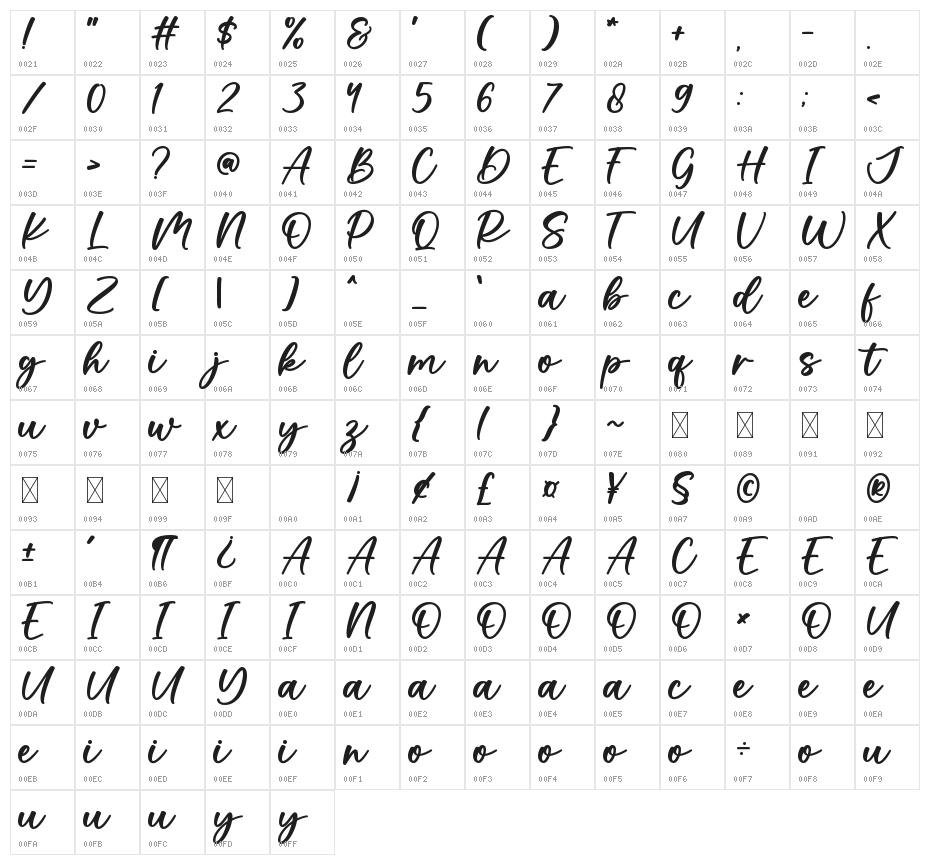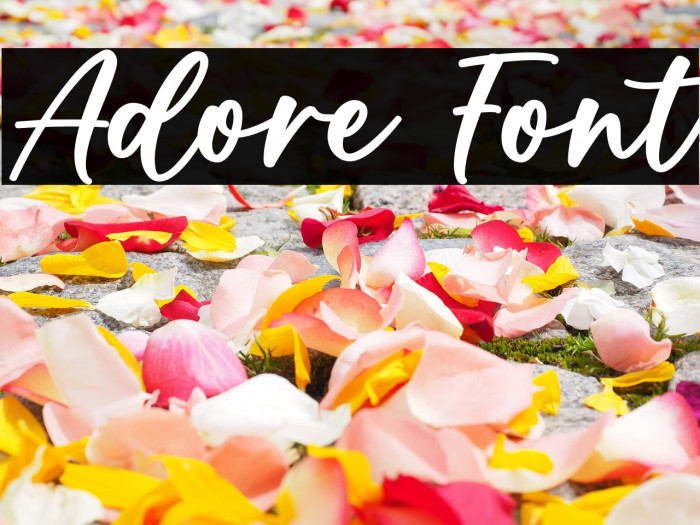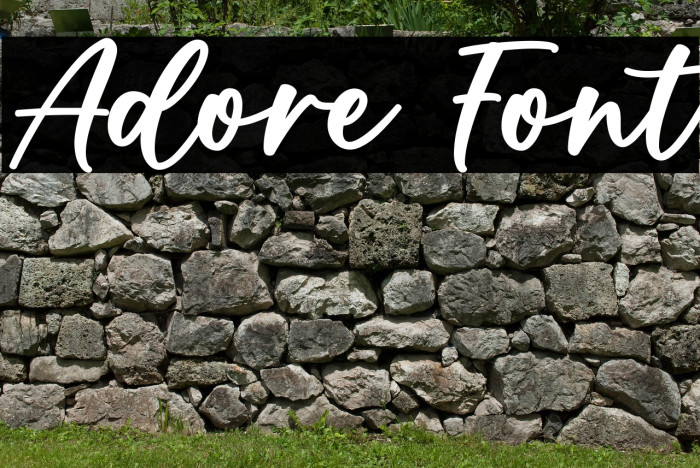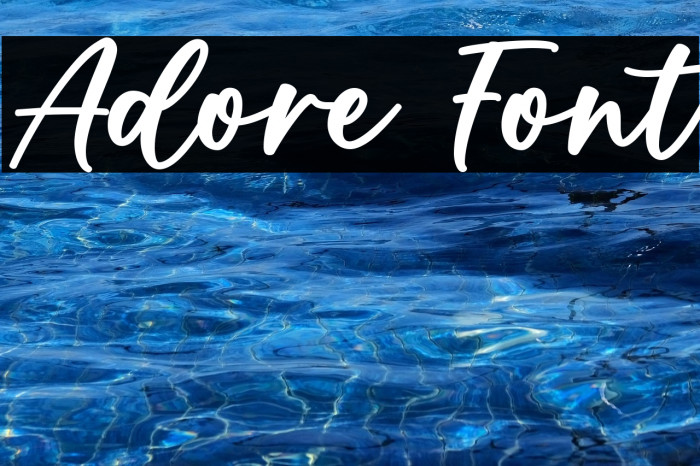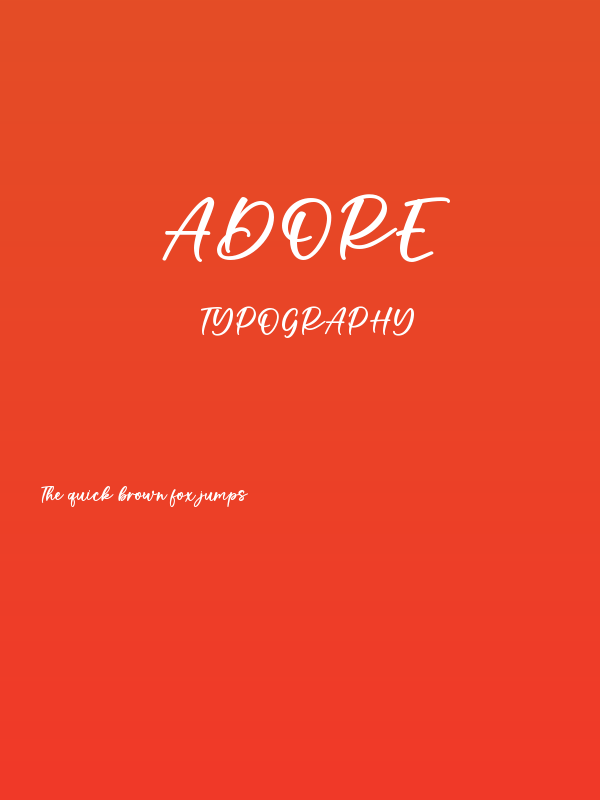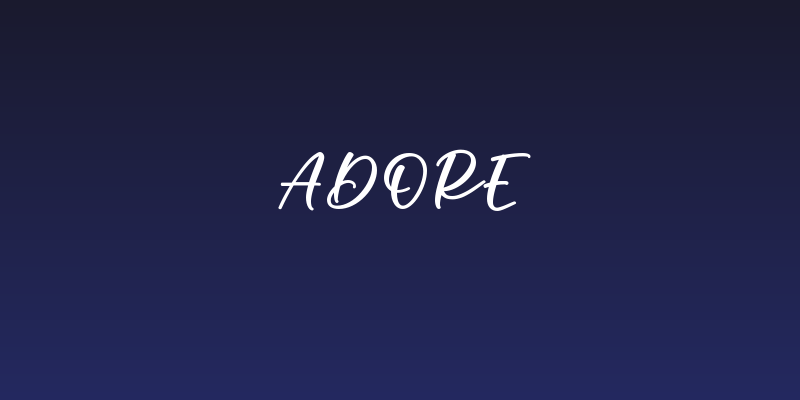
Adore Font
Adore Description
A flowing, connected script font with a handwritten appearance, featuring smooth curves and consistent stroke thickness. The characters are slightly slanted, mimicking natural handwriting, and the overall look is elegant yet casual.
| Overall Style | Modern, Handwritten, Decorative |
| Use Case | Logos, Headlines, Invitations, Social media posts |
| Proposed Projects | Wedding invitations, greeting cards, branding, social media graphics, personal signatures. |